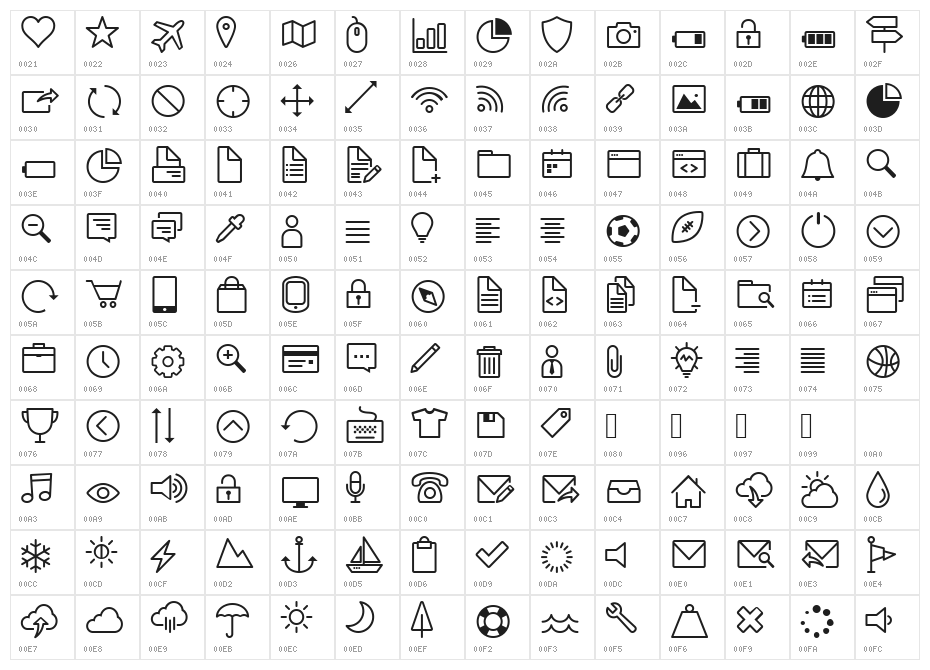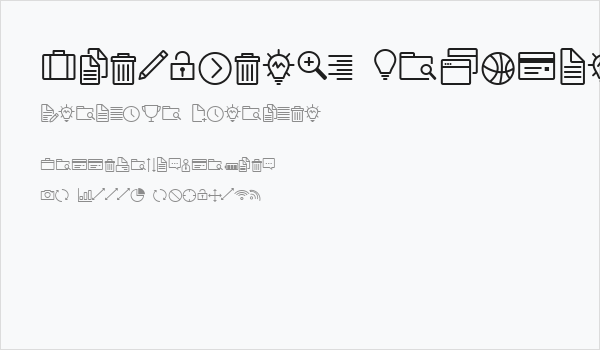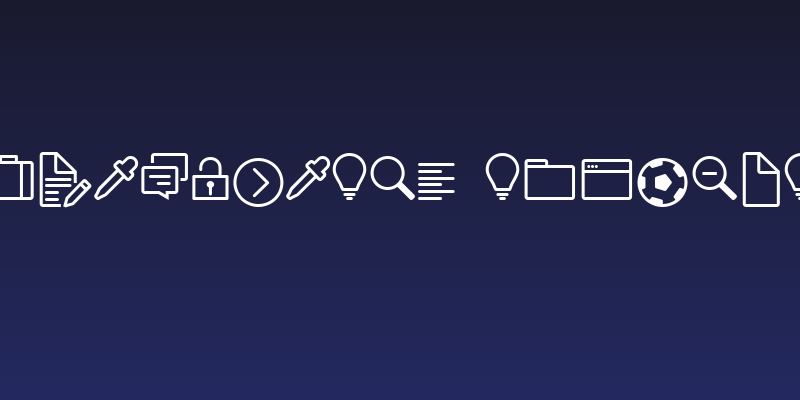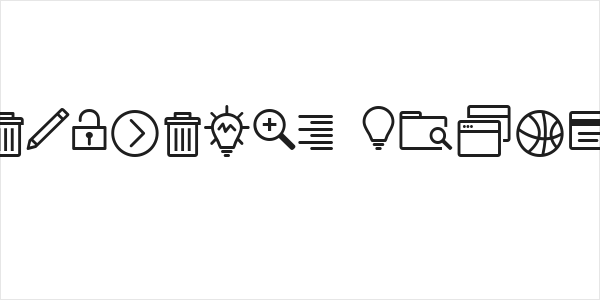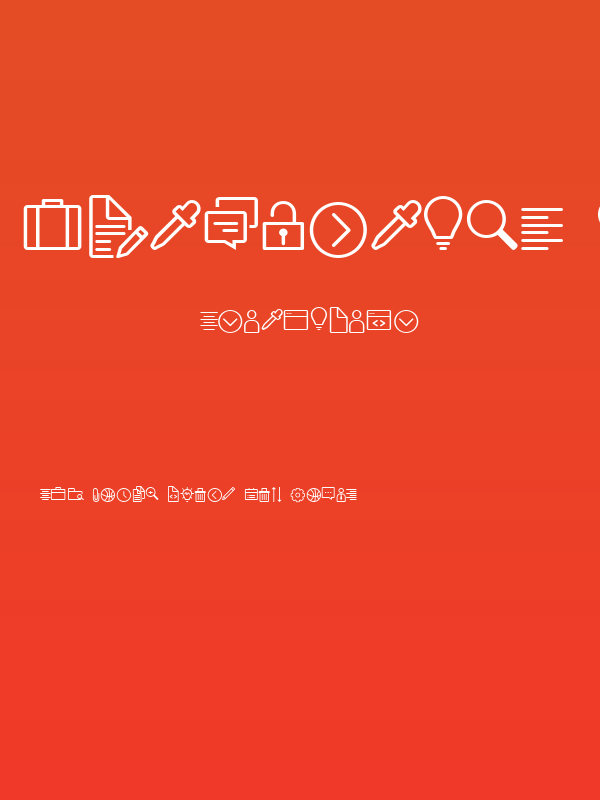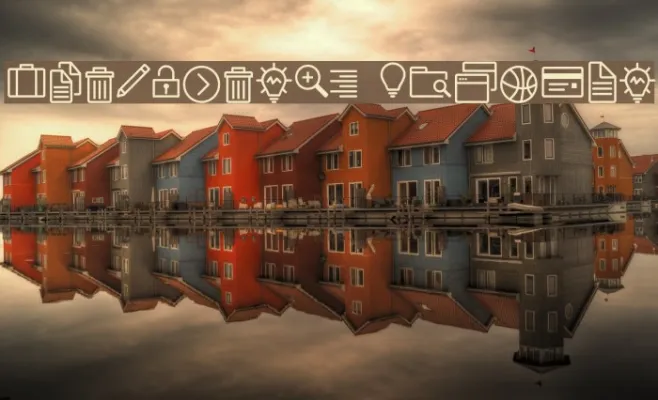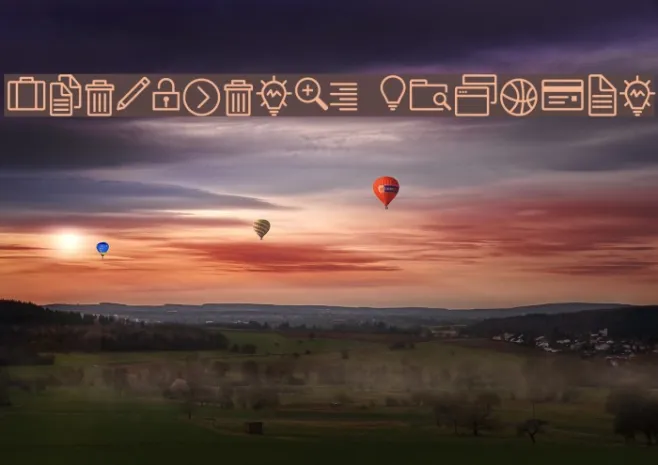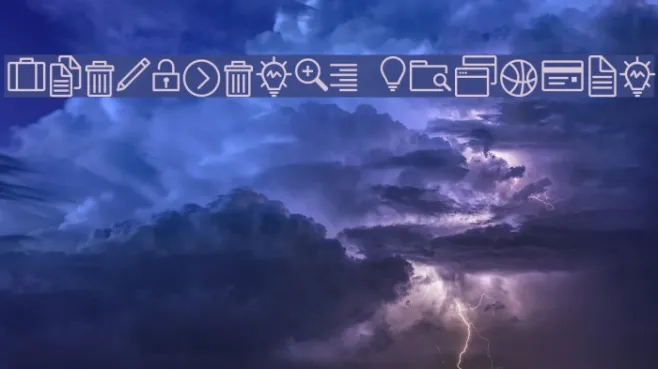
Icon-Works Regular Font
Icon-Works Regular Description
A clean, geometric icon set with consistent line weights and rounded corners, featuring a wide range of common interface and application symbols. The icons are outlined, evenly spaced, and maintain a uniform visual style for clarity and versatility.
| Overall Style | Modern, Minimalist |
| Use Case | Icons for UI/UX, navigation, toolbars, and dashboards. |
| Proposed Projects | User interfaces, mobile apps, web dashboards, infographics, presentations, software toolbars. |